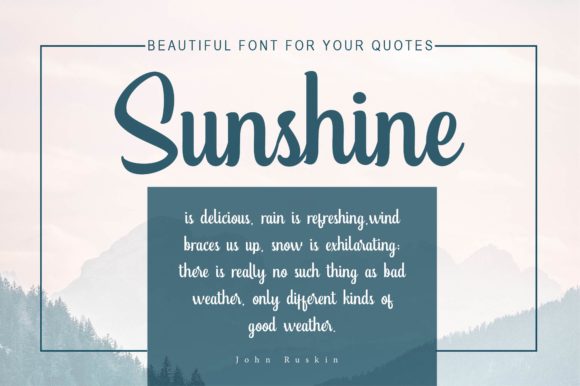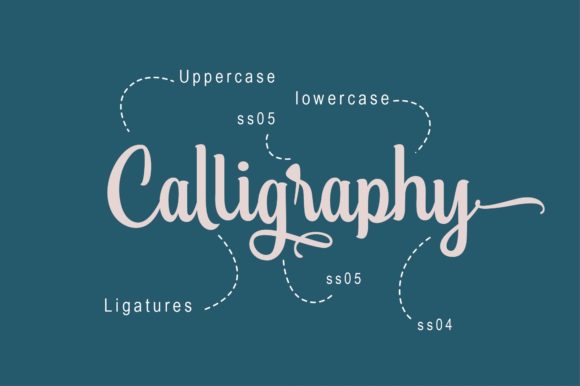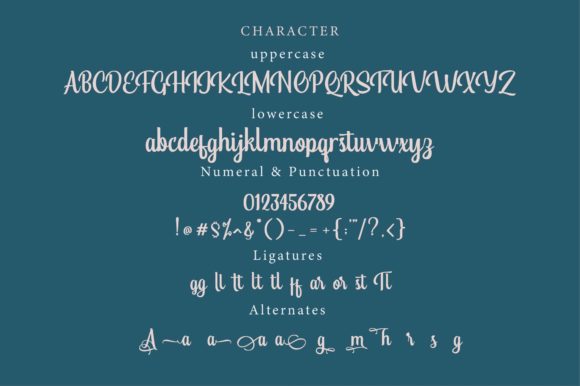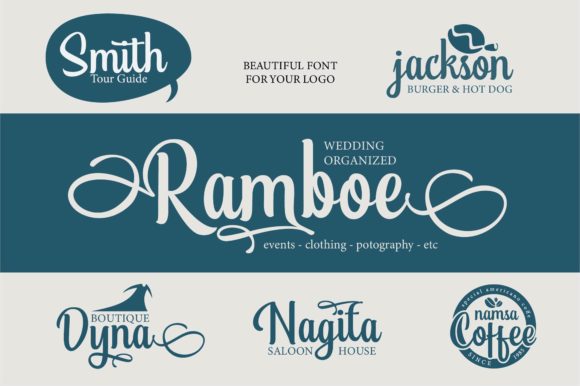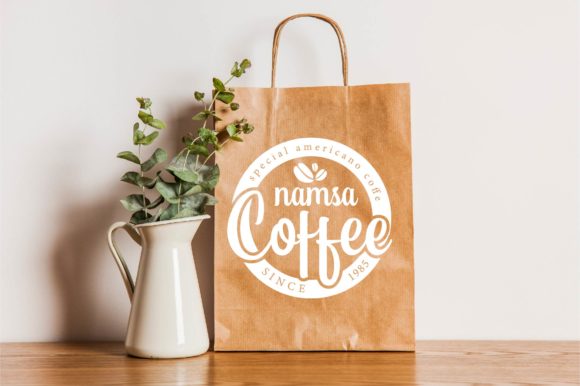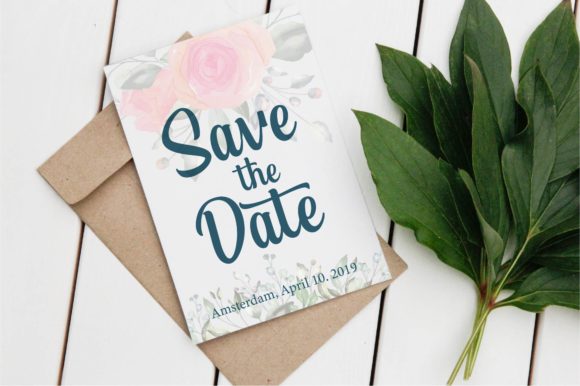
The Anggie Font: A Hand Lettering Dream Come True
I’ll never forget the design project that led me to discover the Anggie font. I was working on a branding project for a boutique coffee shop, and I needed a font that would capture the warm, inviting atmosphere of their cozy cafe. I spent hours scouring font websites, but nothing seemed quite right. That was when I stumbled upon Anggie, a beautiful hand lettering typeface that instantly stole my heart.
So, what makes Anggie so special? Let’s dive into the good stuff! 😊
• ✨ Stunning hand lettering style: Anggie’s unique, hand-crafted look is perfect for adding a personal touch to your designs.
• ✅ Versatile: This font can be used for a wide range of projects, from headings and logos to invitations, t-shirt designs, and more.
• ✅ Beautiful extras: Anggie comes with a set of gorgeous extras, including glyphs and stylistic alternates, to help you take your designs to the next level.
Of course, no font is perfect, and Anggie has a few small quirks to keep in mind:
• 🤔 Limited use in body text: While Anggie is amazing for headings and titles, it’s not the best choice for long blocks of body text.
• ⚠️ Some characters may require manual kerning: Depending on your design, you may need to adjust the kerning of certain characters to get the perfect look.
The Story Behind Anggie
Anggie was designed with love and care by a talented font designer who wanted to create a unique, hand lettering style that would inspire creativity. With its beautiful extras and versatile design, Anggie has become a favorite among designers and crafters alike.
What type of projects is Anggie best suited for? Anggie is perfect for headings, logos, invitations, t-shirt designs, greeting cards, posters, labels, book covers, brochures, and more!
Is Anggie a difficult font to use? Not at all! Anggie is easy to use and comes with a range of features and styling options to help you get the perfect look.